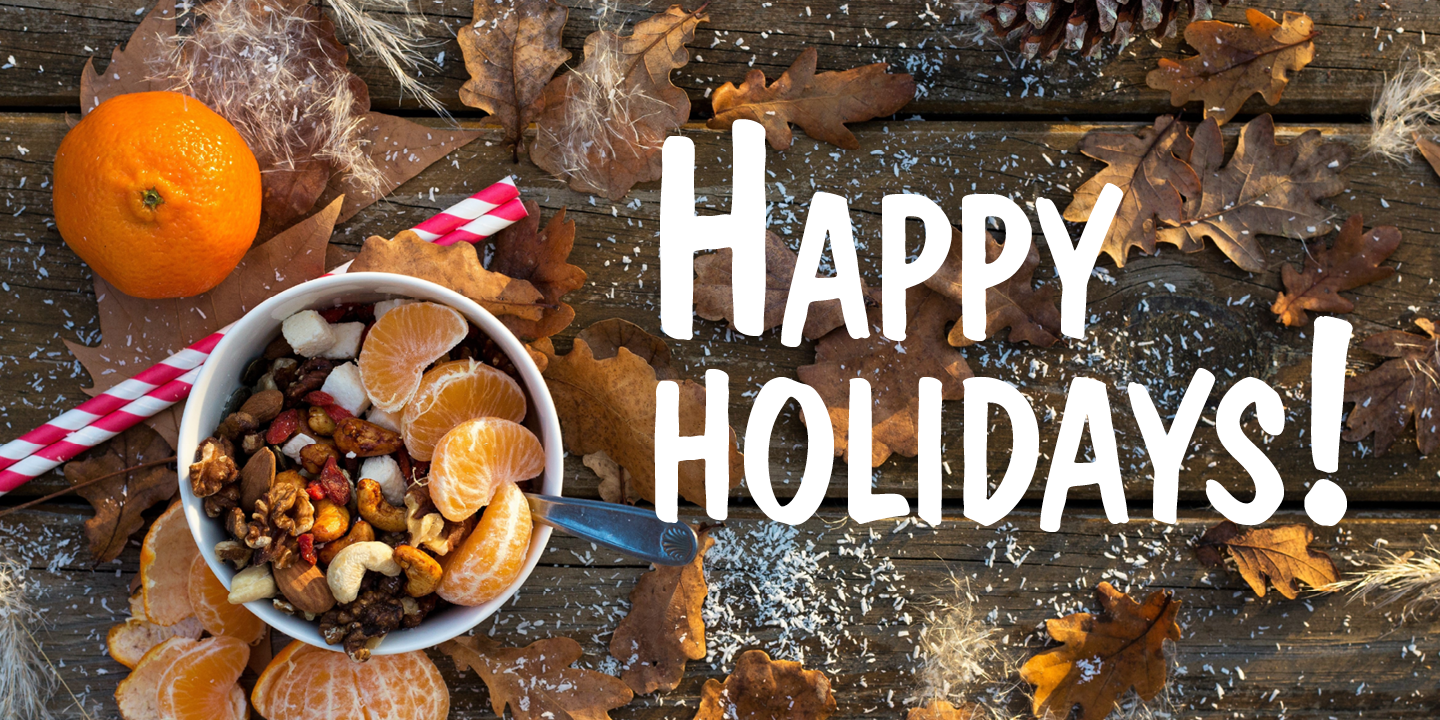
Dom Font Free Download is a bold and lively script typeface that brings a casual, retro-inspired feel to any design project. Originally popularized in mid-20th-century advertising and signage, Dom remains a favorite for projects that need a touch of vintage charm combined with modern versatility. It’s perfect for branding, logos, posters, merchandise, and promotional materials that want to evoke energy and friendliness.
The flowing, rounded strokes of Dom make it highly legible while maintaining a playful and approachable appearance. Whether used for headlines, logos, or creative slogans, Dom Font Free Download provides a distinctive, eye-catching look that captures attention across both print and digital formats.
Available in various styles and supporting multiple languages, Dom offers flexibility for a wide range of creative applications. Its vibrant, handwritten character gives projects a sense of authenticity and warmth. Download Dom Font Free Download today and infuse your designs with a retro spirit and lively personality.